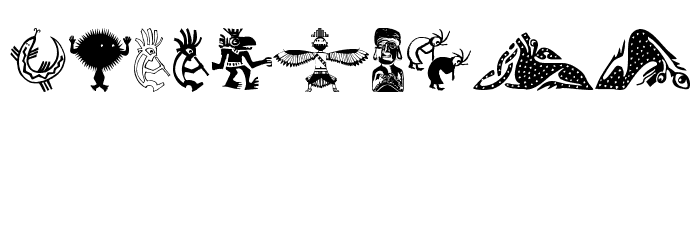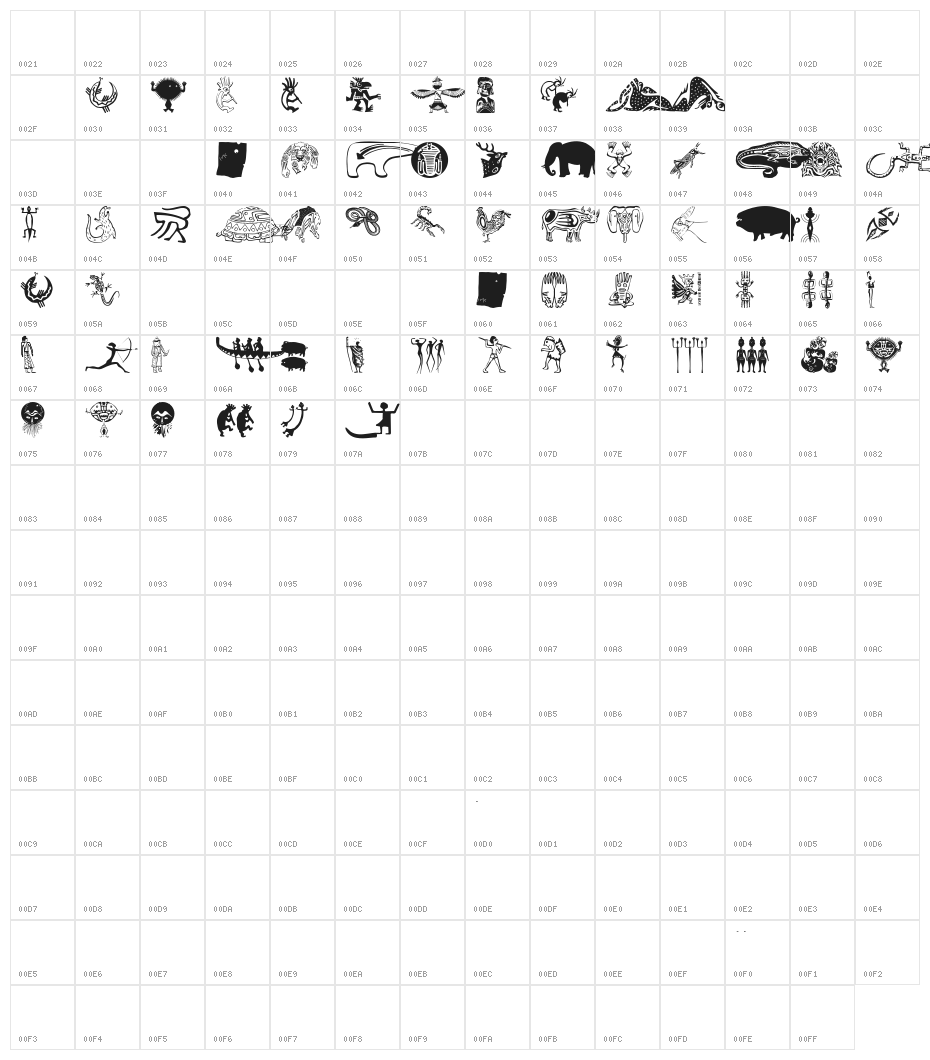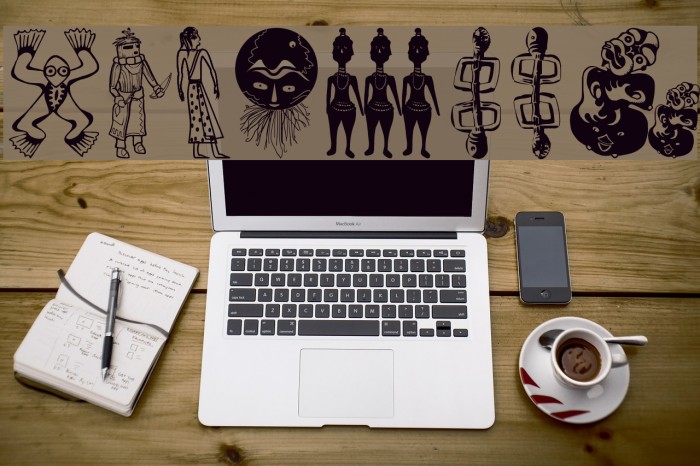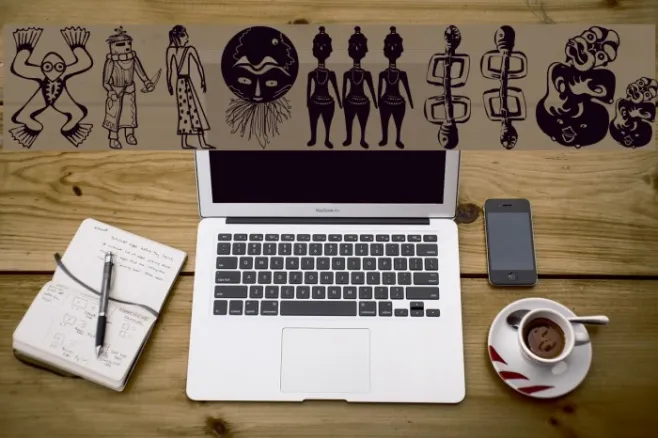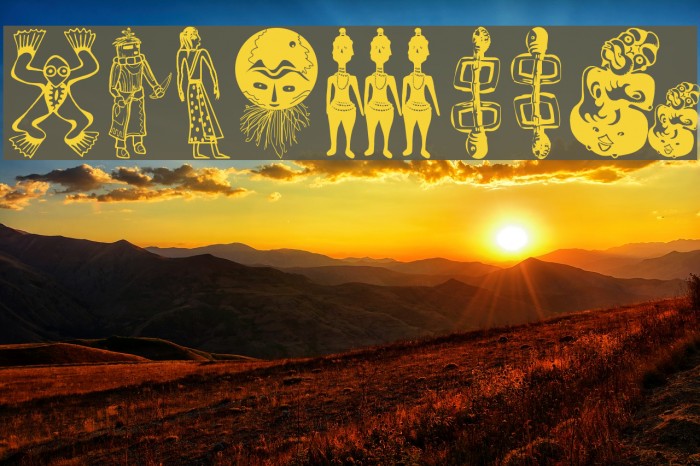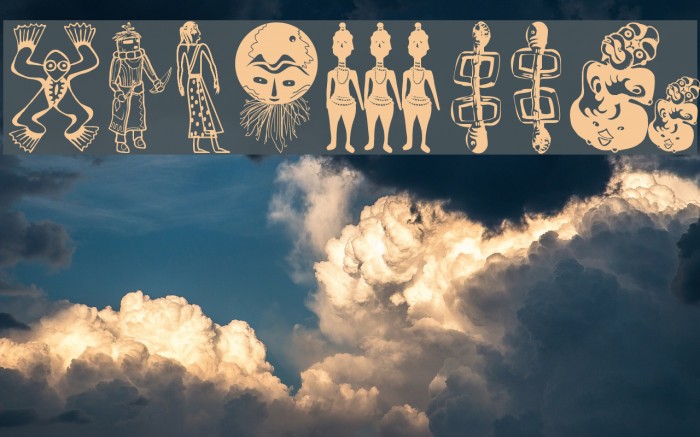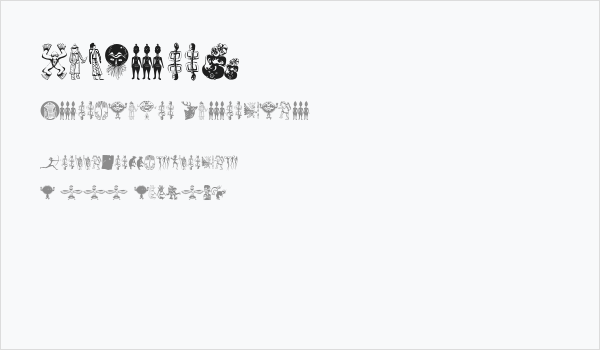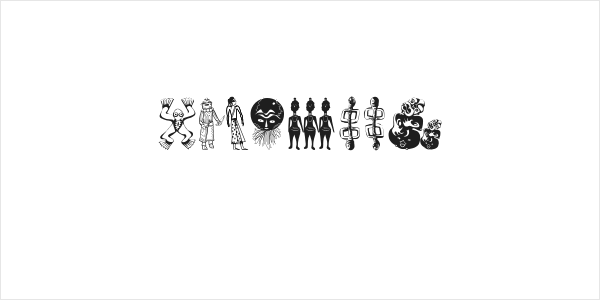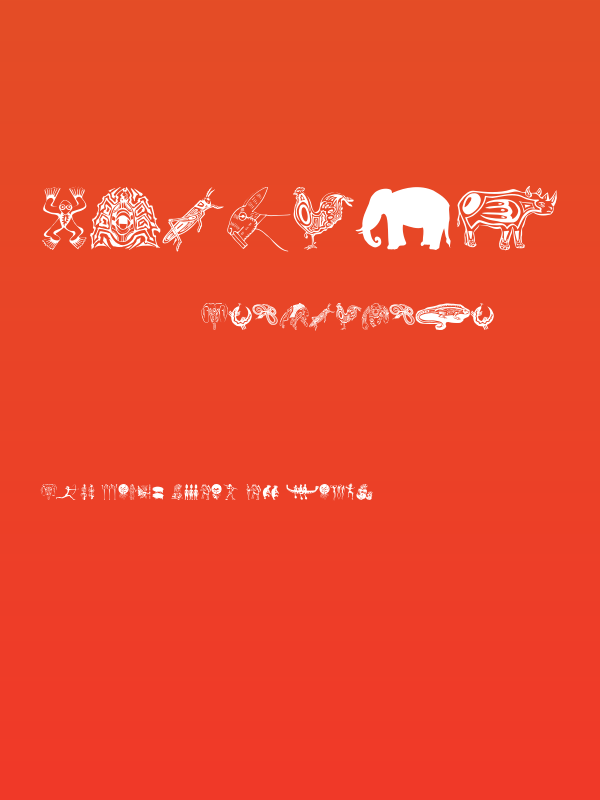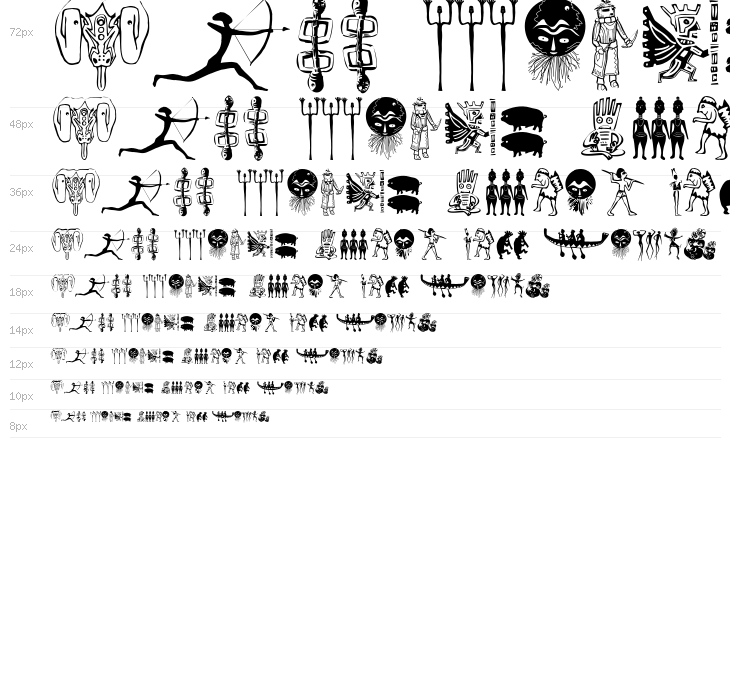
Figures Font
Figures Description
A highly decorative and illustrative font composed of pictorial glyphs inspired by ancient cave paintings, petroglyphs, and indigenous art, featuring animals, humans, masks, and symbolic figures with bold, irregular strokes and high visual contrast.
| Overall Style | Decorative, Primitive, Ethnic, Artistic |
| Use Case | Logos, Posters, Themed Headlines, Educational Graphics |
| Proposed Projects | Educational materials, museum displays, history-themed posters, children's books, cultural event branding, creative art projects. |